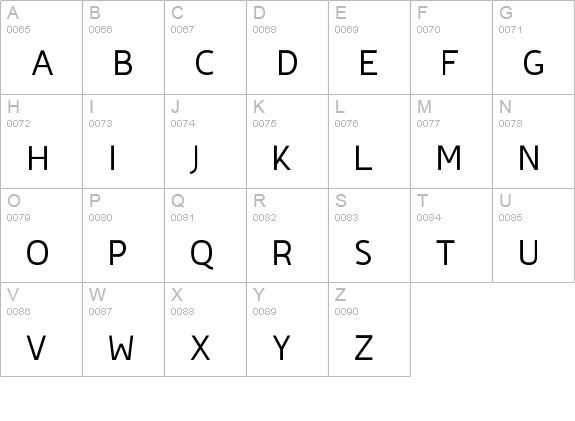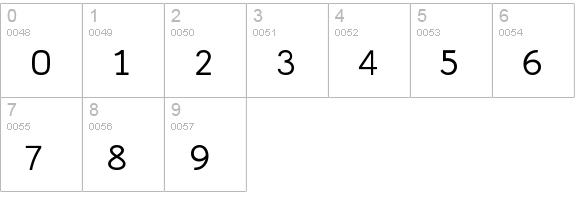
Domestos98-Thin Font Details
Domestos98-Thin is a delicate, low-contrast variant in the Domestos98 typeface family \xE2\x80\x94 well suited to fashion editorial, minimal branding, and high-contrast display.
Introducing Domestos98-Thin font, a sleek and modern typeface that exudes sophistication and elegance. Perfect for adding a touch of refinement to any design project, this font features clean lines and a delicate thin weight that will make your text stand out with grace. Domestos98-Thin font is versatile and can be used for a variety of applications, from branding and logos to editorial design and packaging. Its minimalist aesthetic is both timeless and contemporary, making it a great choice for those looking to elevate their designs with a touch of class. Best of all, Domestos98-Thin font is free to download at FontsMarket.com, so you can easily access this high-quality typeface without breaking the bank. Don't miss out on the opportunity to enhance your projects with this stylish and sophisticated font. Download Domestos98-Thin today and elevate your designs to the next level.